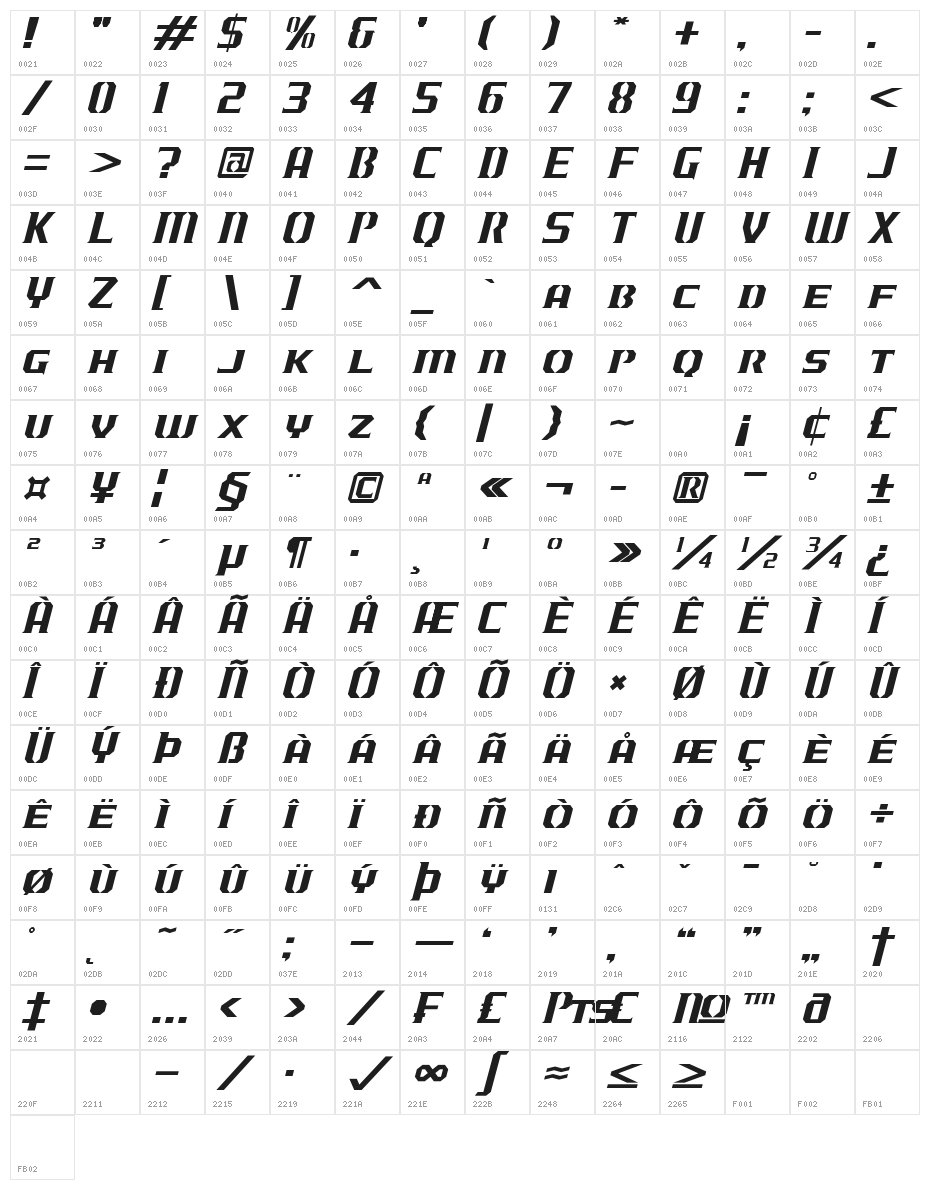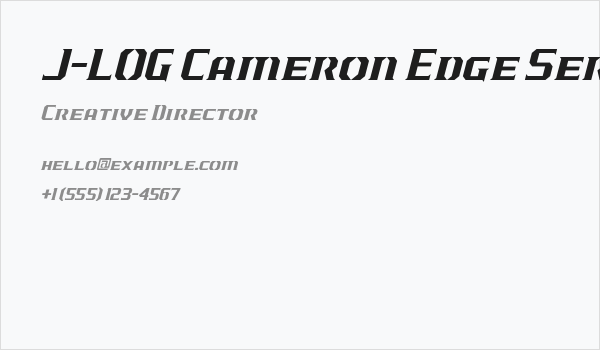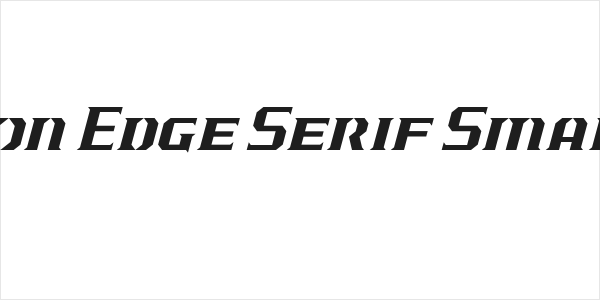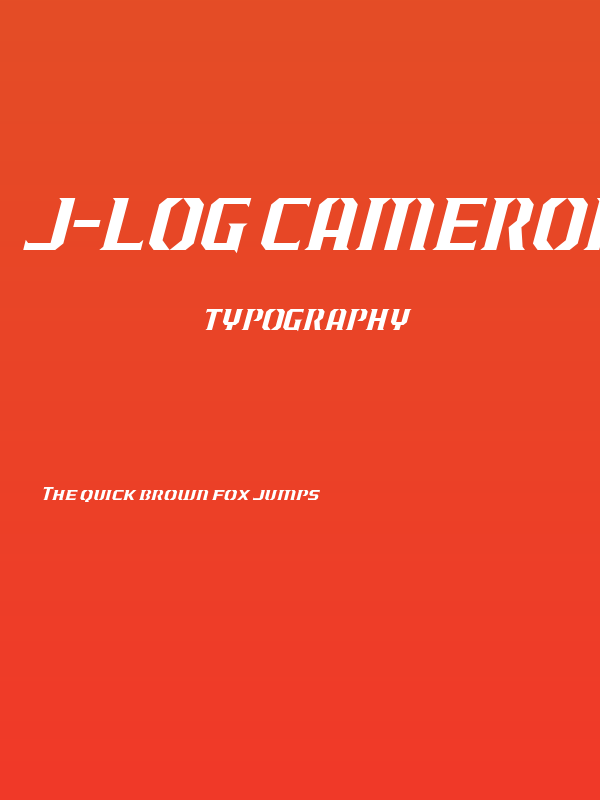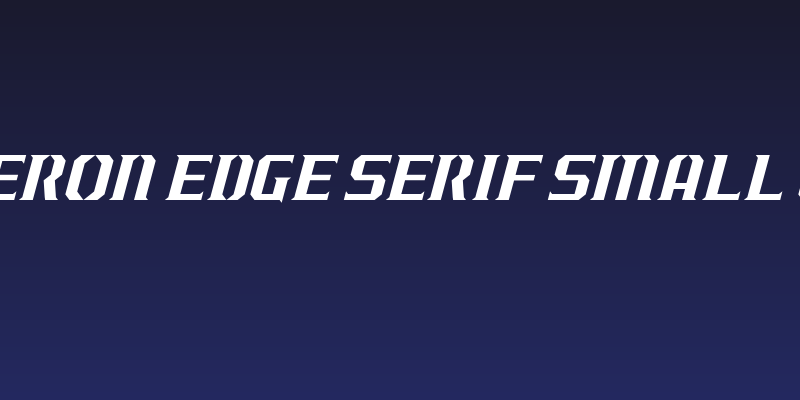
J-LOG Cameron Edge Serif Small Caps Italic Font
J-LOG Cameron Edge Serif Small Caps Italic Description
| Proposed Projects | Ideal for branding, posters, and editorial design where a modern, edgy look is desired. |